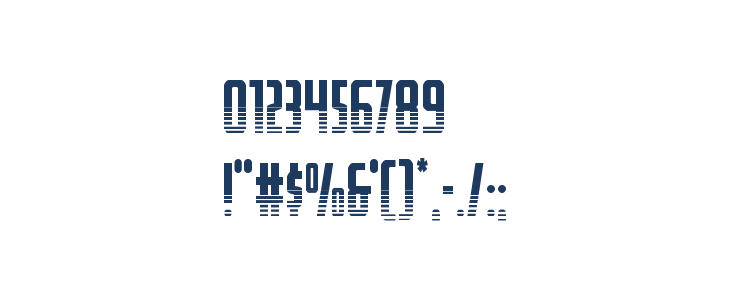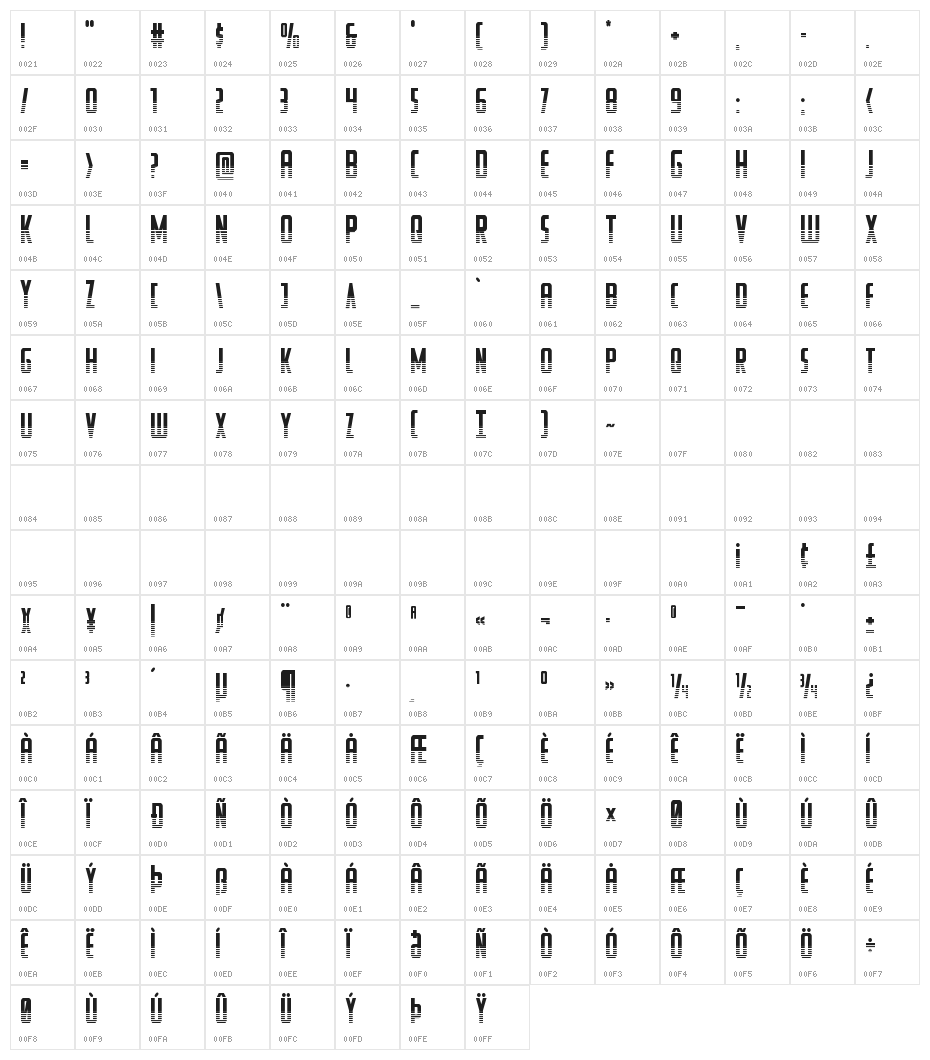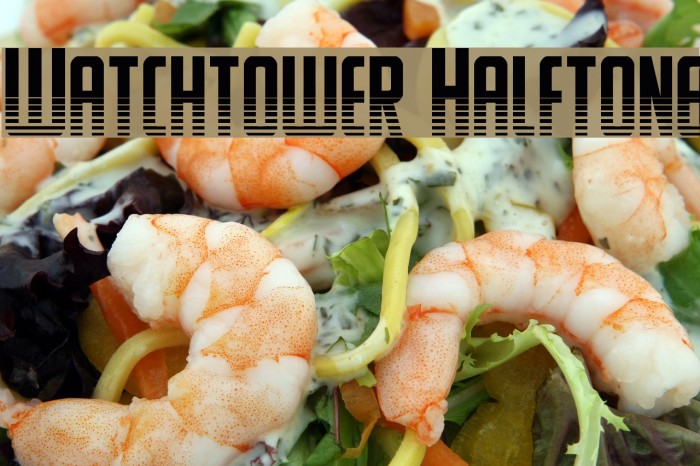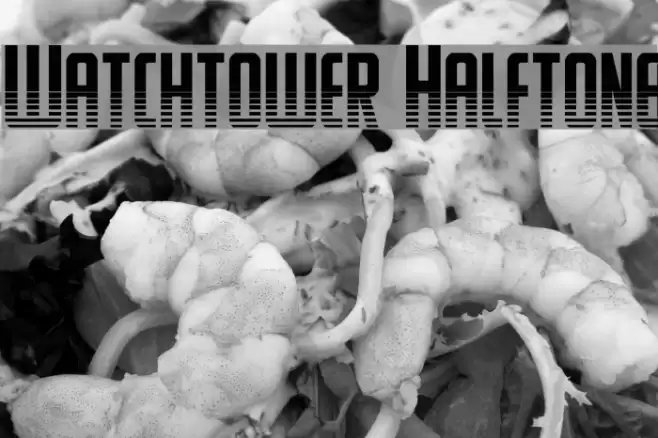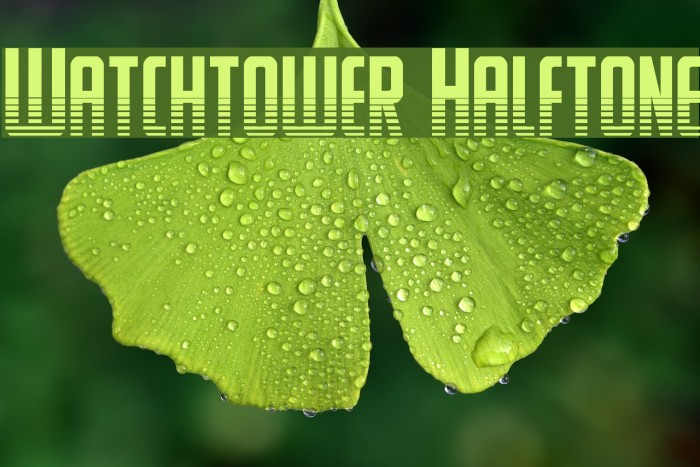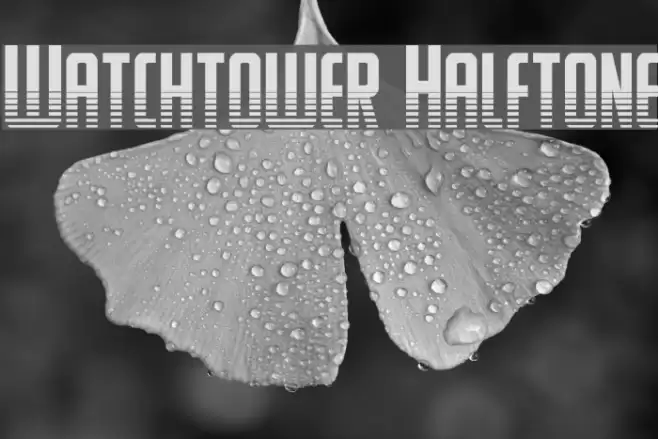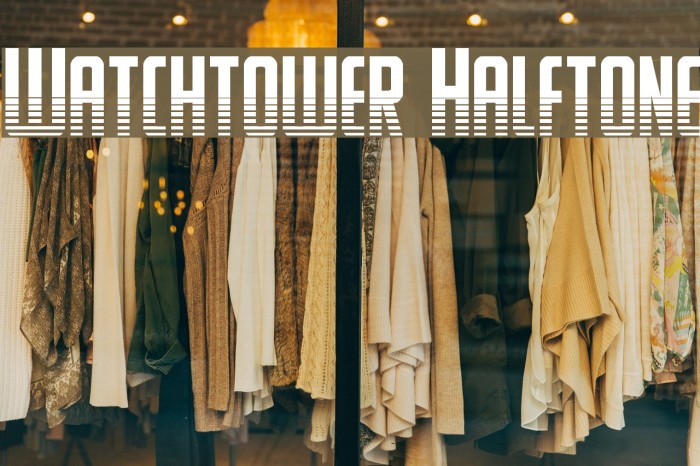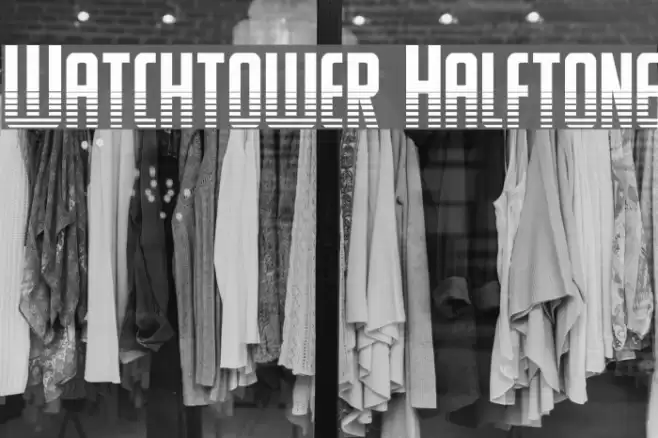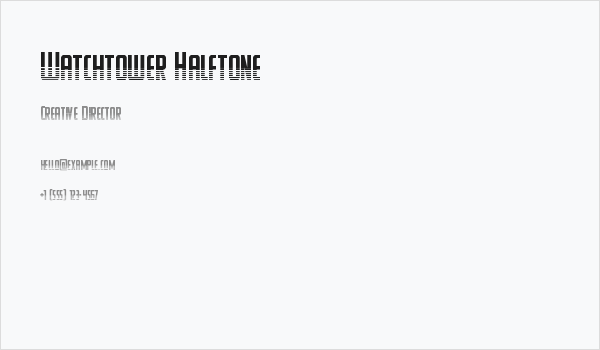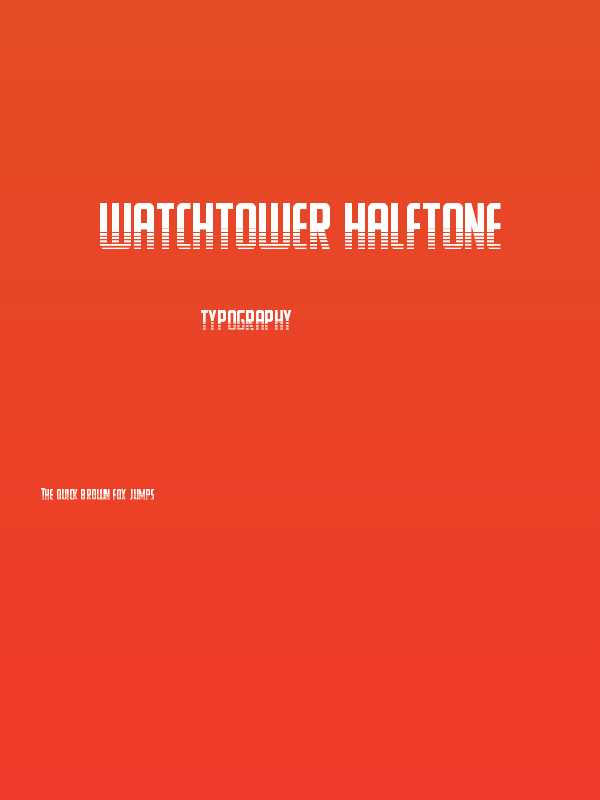
Watchtower Halftone Font
Watchtower Halftone Description
This font features a bold, modern design with a unique halftone effect that creates a sense of depth and movement. The uppercase letters are characterized by a strong, geometric structure with horizontal lines that fade towards the bottom, giving a dynamic and futuristic appearance. The numerals and special characters follow the same pattern, ensuring consistency across all glyphs. The overall aesthetic is striking and eye-catching, making it ideal for projects that require a bold statement.